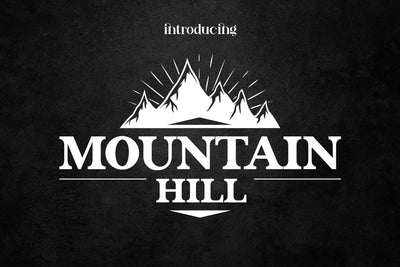
Mountain Hil Fonts
Mountain Hill was designed with simplicity. and can be used in a variety of No matter what style it is, it can fit together perfectly. You can use it for various projects, such as blog posts, logos, branding, ads, invitations, greeting cards, planners, photo albums, decorations, and much more.